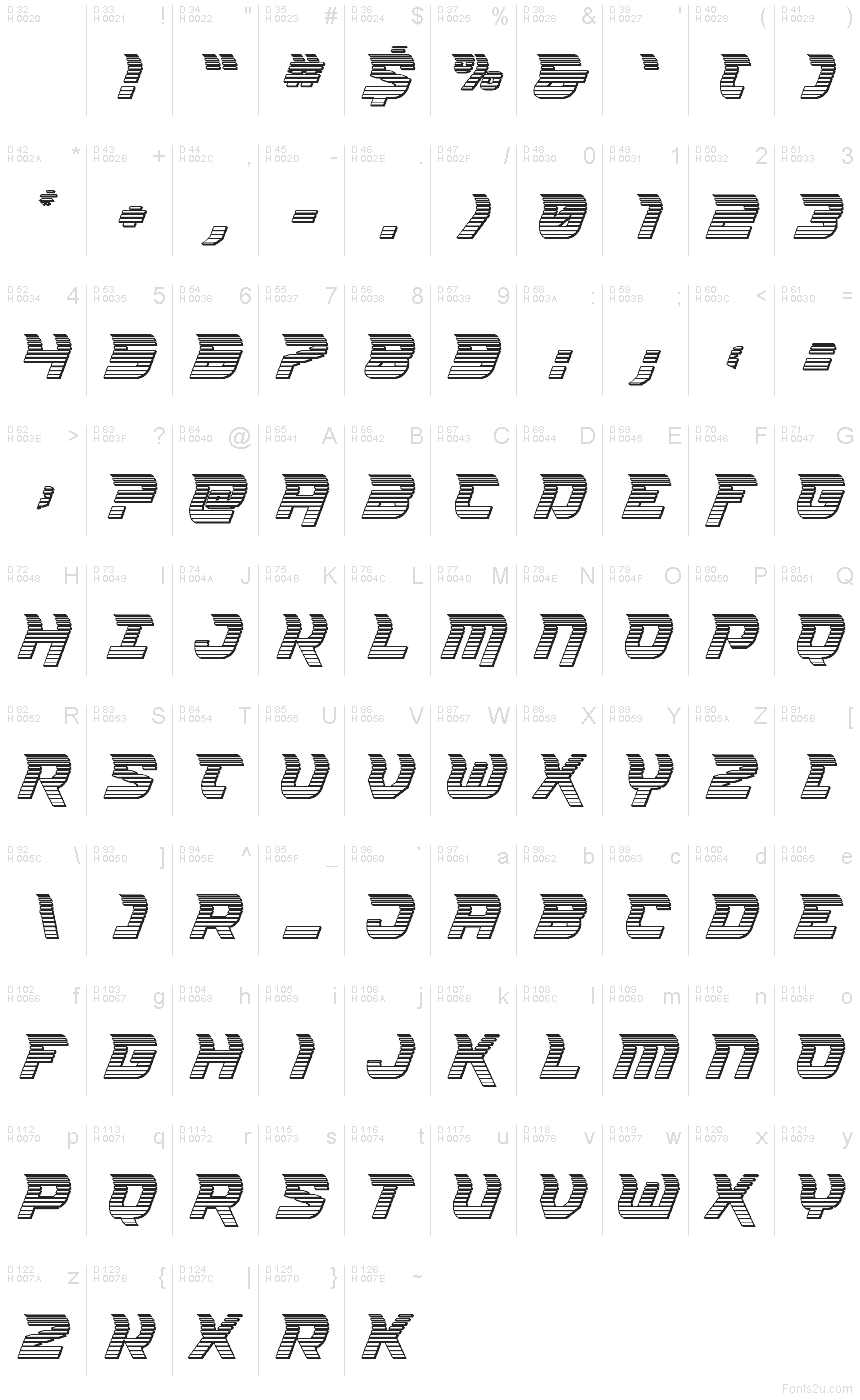
Renegent Chrome
Renegent Chrome font by Iconian Fonts is a free modern display font with chrome letters, a futuristic feel, and an original design. Its high-impact style reflects in its bold characters, detailed edges, and widths of various measurements. Lines are added to the backgrounds but not filled while separations can be found within some characters.